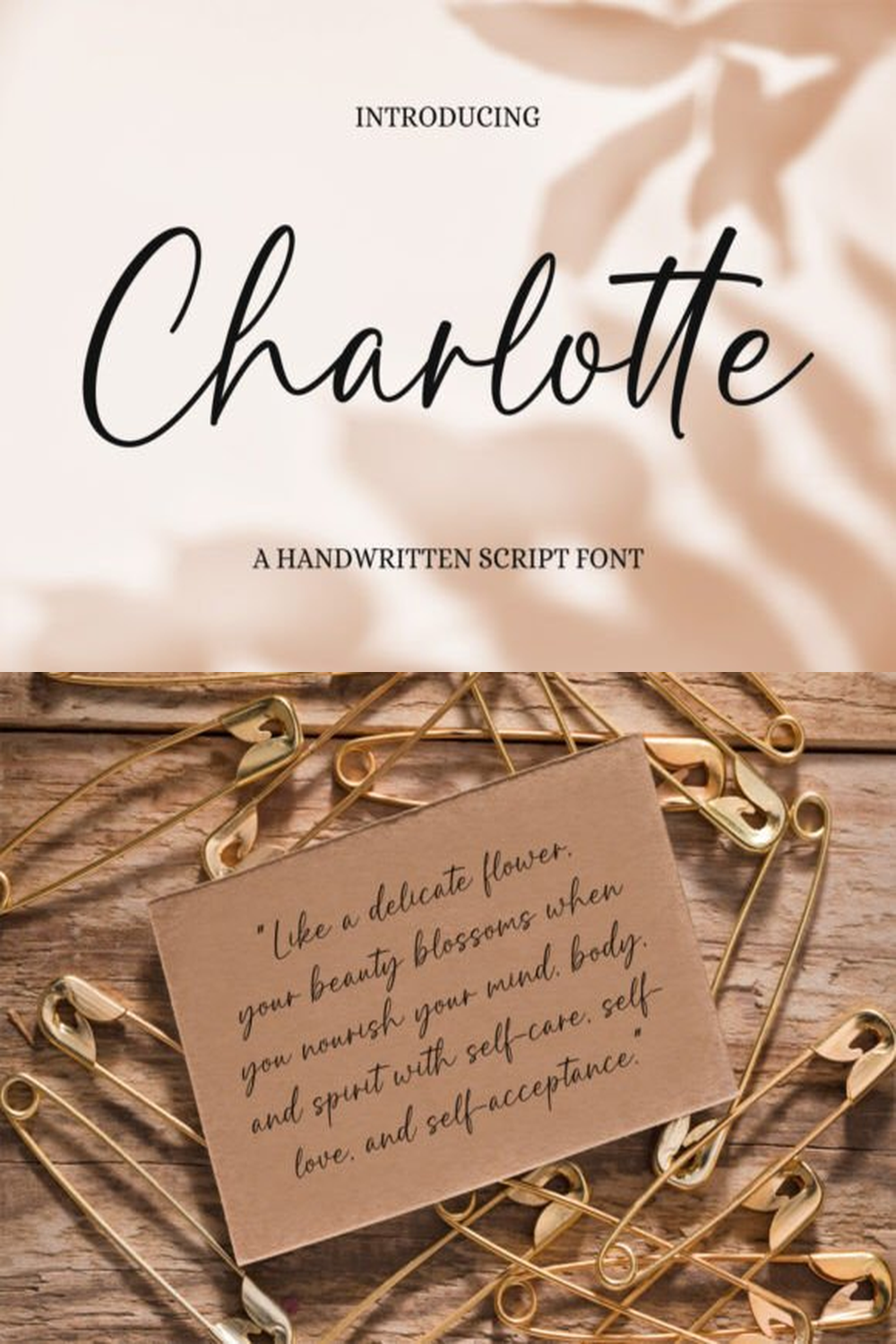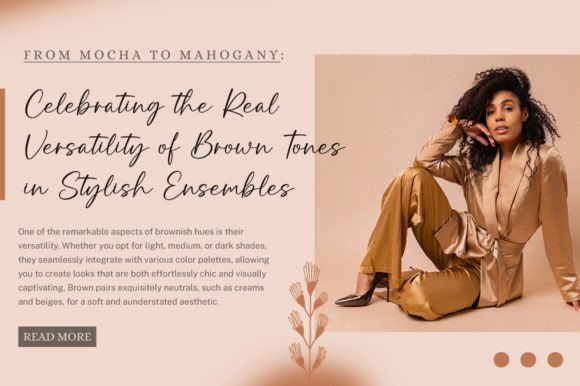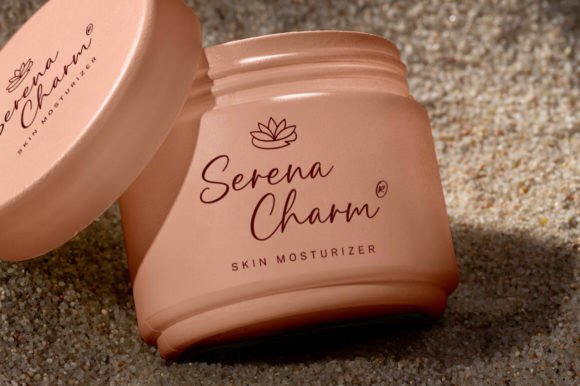
Charlotte Font: Elegant Calligraphy for Wedding & Branding Designs
About the Charlotte Font
The wait is over! The incredible Charlotte Font is now available for your design toolkit. Charlotte is a delicate, elegant, and flowing handwritten font. It has beautiful and well-balanced characters and as a result, it matches a wide pool of designs. Charlotte is PUA encoded, which means you can access all of the glyphs and swashes with ease!
Charlotte Font Usage Examples